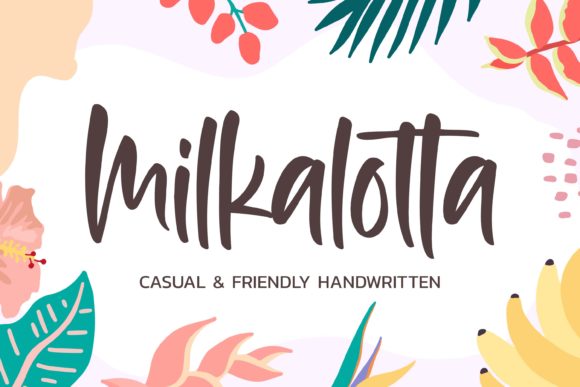
**Indulge in the Enchanting Charm of Milkalotta Font**
Step into a world of elegance and sophistication with Milkalotta, our captivating script font. Its graceful curves and flowing strokes evoke a sense of timeless beauty and effortless style. Milkalotta is the perfect choice for discerning individuals who demand only the extraordinary.
Crafted by the renowned almarkhatype, Milkalotta is a versatile masterpiece that adds an air of refinement to any creation. Whether you're designing unforgettable wedding invitations, crafting exquisite stationary art, or creating eye-catching social media posts, Milkalotta elevates every project to new heights of artistry.
Imagine your business sign adorned with the captivating allure of Milkalotta. Its distinctive style commands attention and conveys a sense of professionalism and sophistication that sets you apart from the competition. With Milkalotta, your brand becomes a beacon of elegance and unforgettable charm.
Indulge in the exquisite beauty of Milkalotta and unleash your creativity. Let its enchanting strokes ignite inspiration and transform your designs into works of art that captivate and inspire. Elevate your creations, empower your brand, and create a lasting impression that will leave an enduring legacy.